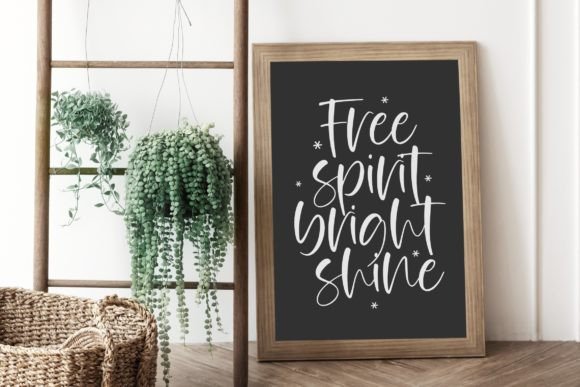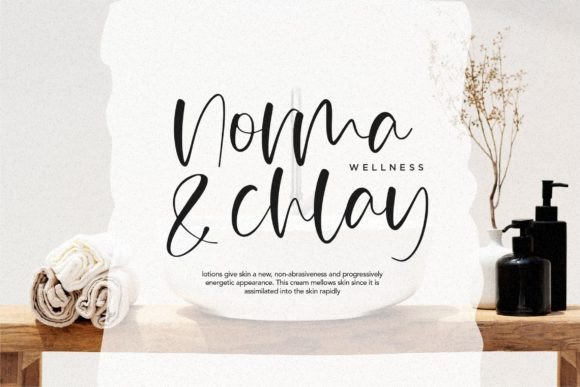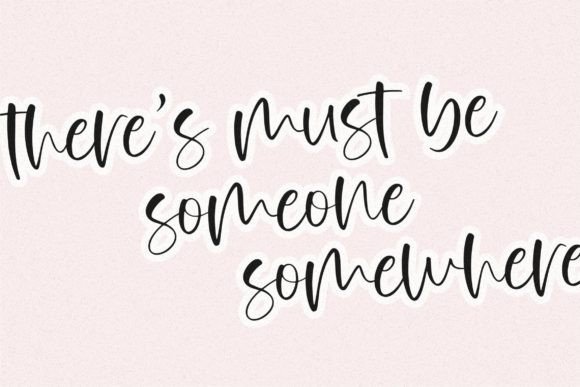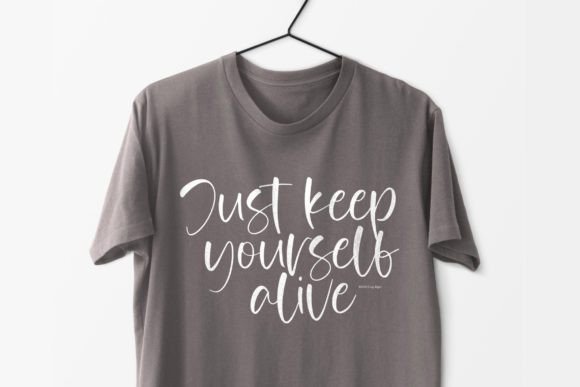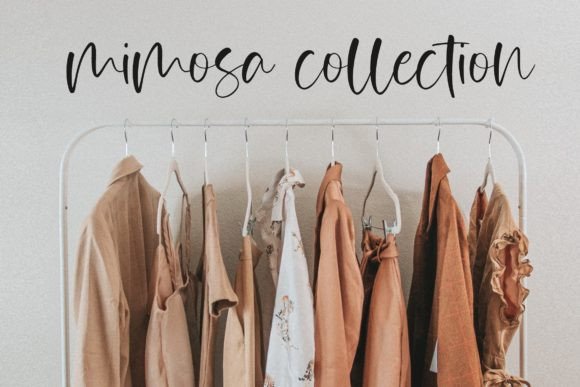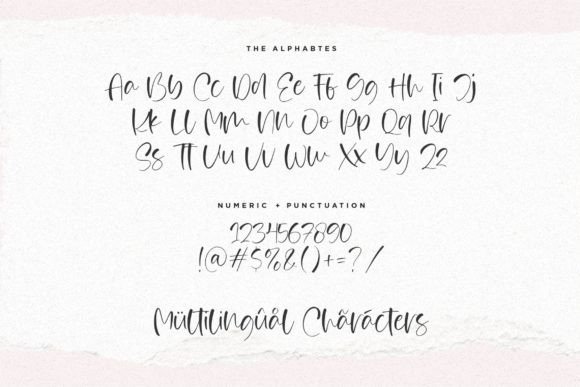
Discover the Elegance of Canfield Font: A Delicate Handwritten Masterpiece
Are you a designer or crafter looking for a font that exudes elegance and sophistication? Look no further than Canfield Font, a delicate and elegant handwritten font that is sure to capture your heart. With its distinct and well-balanced letters, Canfield Font is a masterpiece that can elevate any design project to new heights.
The Unique Characteristics of Canfield Font
Canfield Font is a handwritten font that boasts a unique and stylish aesthetic. Its delicate lines and curves create a sense of fluidity and movement, making it perfect for designs that require a touch of elegance and refinement. The font’s well-balanced letters ensure that it is easy to read and understand, making it suitable for a wide range of applications, from branding and advertising to packaging and stationery.
The Versatility of Canfield Font
One of the standout features of Canfield Font is its incredible versatility. Whether you’re designing a logo, creating a social media graphic, or crafting a beautiful wedding invitation, Canfield Font can adapt to any style or theme. Its elegant and refined aesthetic makes it perfect for designs that require a touch of sophistication, while its playful and whimsical feel ensures that it can also be used for more creative and experimental projects.
Why Designers and Crafters Love Canfield Font
So, why do designers and crafters love Canfield Font? For starters, its unique and stylish aesthetic makes it a great way to add a personal touch to any design project. The font’s elegance and sophistication also make it perfect for designs that require a high level of professionalism, such as business branding and marketing materials. Additionally, Canfield Font is incredibly easy to use, with a simple and intuitive design that makes it easy to pair with other fonts and design elements.
In conclusion, Canfield Font is a delicate and elegant handwritten font that is sure to capture the hearts of designers and crafters. With its distinct and well-balanced letters, incredibly versatile style, and ease of use, Canfield Font is the perfect choice for any design project that requires a touch of elegance and sophistication. So why wait? Fall in love with Canfield Font and start creating spectacular designs today!